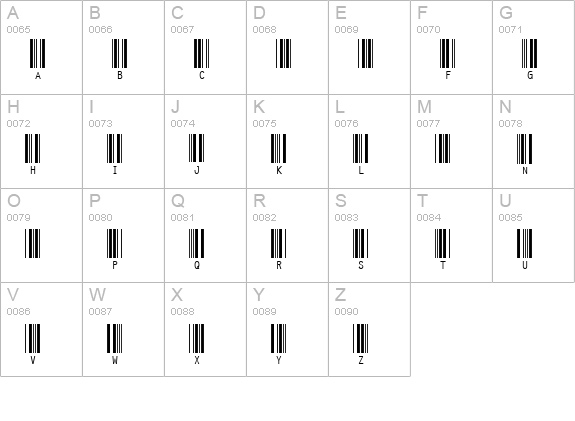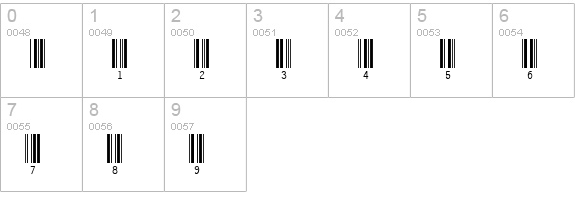
SKANDEMO R Bar Code C39 Font Details
SKANDEMO R Bar Code C39 font is a versatile and highly functional typeface that is perfect for creating barcodes. Designed with precision and attention to detail, this font is a must-have for businesses and individuals who require accurate and reliable barcode generation. The SKANDEMO R Bar Code C39 font is specifically designed to meet the industry-standard Code 39 barcode format. This format is widely used in various applications, including inventory management, product labeling, and logistics. With its clear and readable characters, this font ensures that barcodes can be easily scanned and interpreted by barcode readers and scanners. One of the standout features of the SKANDEMO R Bar Code C39 font is that it is freely available to download at FontsMarket.com. This means that users can easily access and use this font without any cost. Whether you are a small business owner looking to label your products or an individual looking to create barcodes for personal use, this font provides a convenient and cost-effective solution. The SKANDEMO R Bar Code C39 font offers a wide range of customization options, allowing users to adjust the size, weight, and style of the barcode to suit their specific needs. With its sleek and modern design, this font adds a professional and polished look to any barcode design. In addition to its versatility and aesthetic appeal, the SKANDEMO R Bar Code C39 font also boasts excellent compatibility with various operating systems and design software. This ensures seamless integration and ease of use for users across different platforms. Overall, the SKANDEMO R Bar Code C39 font is an exceptional choice for anyone in need of a reliable and visually appealing barcode font. With its free availability at FontsMarket.com, this font offers a cost-effective solution without compromising on quality or functionality. Download the SKANDEMO R Bar Code C39 font today and enhance your barcode creations with ease and efficiency.